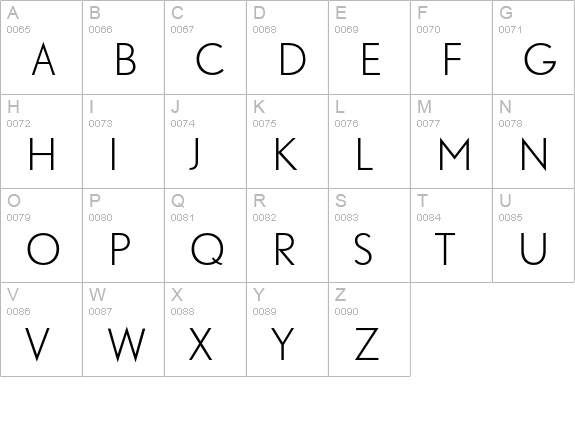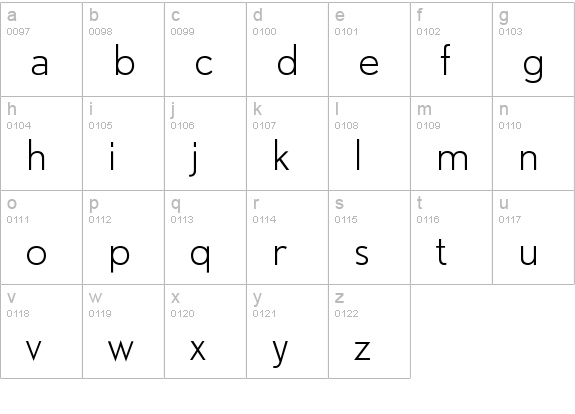
DTLNobelT-Light Font Details
DTLNobelT-Light is a refined, elegant variant in the DTLNobelT typeface family \xE2\x80\x94 well suited to elegant body text, refined sub-headings, and luxury branding.
DTLNobelT-Light is a sleek and sophisticated font that exudes elegance and modernity. With its clean lines and delicate curves, this font is perfect for adding a touch of refinement to any design project. The light weight of the font gives it an airy and graceful appearance, making it ideal for use in branding, editorial design, and more. What makes DTLNobelT-Light even more appealing is that it is available for free download at FontsMarket.com. This means that you can easily access this stunning font and incorporate it into your work without any cost. Whether you're designing a website, creating a logo, or working on a print project, DTLNobelT-Light is sure to elevate your design with its timeless beauty and sophistication.